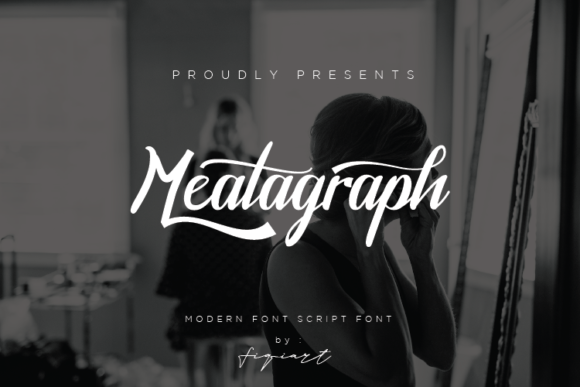
Dive into the depths of Meatagraph, a tantalizing script font that captivates with its raw elegance and modern aesthetics. Each letter dances across the page with an irresistible allure, infusing your designs with a touch of authenticity that's both timeless and captivating.
Crafted by the visionary artists at fiqiart, Meatagraph is a masterpiece that embodies the essence of modern calligraphy. Its sweeping lines and subtle curves evoke a sense of spontaneity and effortless style, making it the perfect choice for any design that seeks to make a lasting impression.
With Meatagraph at your fingertips, you'll discover a world of creative possibilities. Its versatility extends from chic branding and elegant invitations to stunning social media graphics and eye-catching marketing campaigns. Unleash your imagination and let the beauty of Meatagraph transform your designs into captivating works of art.